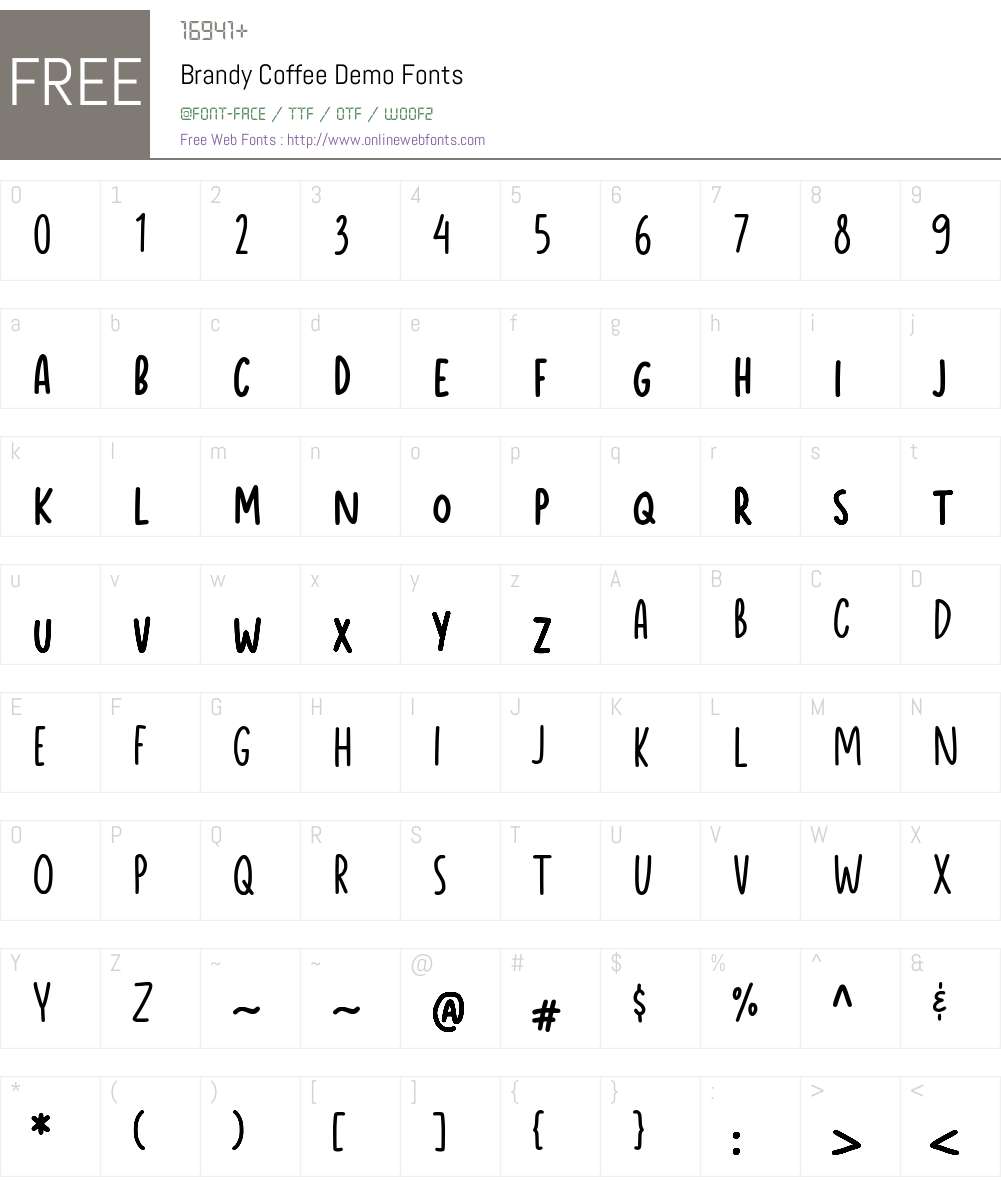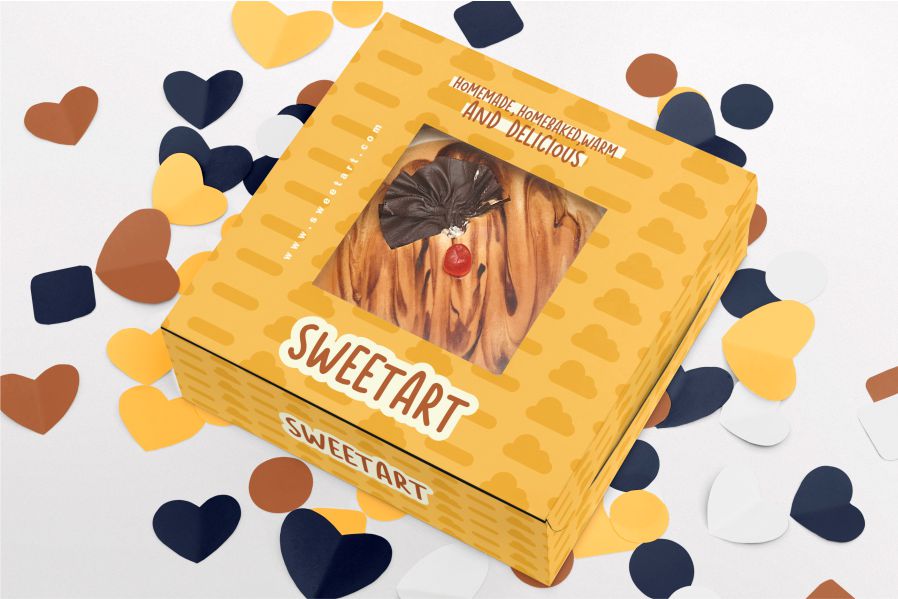
Brandy Coffee Demo Font . Paypal account for donation :. But any donation are very appreciated. Brandy coffee demo is a font. Brandy coffee von allouse studio. Brandy coffee is perfect for product packaging, branding project, megazine, social media, wedding, or just used to express words above the background. 34.841 downloads kostenlos für privaten gebrauch. Not free for commercial use. The typeface contains 1 file and supports 12 languages. ️ customize your own preview on ffonts.net to. Brandy coffee demo is licensed under the following terms: The brandy coffee demo font contains over 20 beautifully designed characters. This font free for personal use. Brandy coffee font is a quirky handwritten typeface designed by allouse.studio. Free download of brandy coffee font. This is the demo version.
Brandy coffee is perfect for product packaging, branding project, megazine, social media, wedding, or just used to express words above the background. Brandy coffee demo is a font. Click now to create a custom image with your own words that you can download. This demo font is for personal use only! Brandy coffee demo is licensed under the following terms: ️ customize your own preview on ffonts.net to. Brandy coffee von allouse studio. Free download of brandy coffee font. Brandy coffee font is a quirky handwritten typeface designed by allouse.studio. The typeface contains 1 file and supports 12 languages.
Brandy Coffee Demo Font The typeface contains 1 file and supports 12 languages. Brandy coffee font is a quirky handwritten typeface designed by allouse.studio. But any donation are very appreciated. This font free for personal use. Brandy coffee von allouse studio. Brandy coffee is perfect for product packaging, branding project, megazine, social media, wedding, or just used to express words above the background. Click now to create a custom image with your own words that you can download. The typeface contains 1 file and supports 12 languages. ️ customize your own preview on ffonts.net to. This demo font is for personal use only! Paypal account for donation :. Brandy coffee demo is licensed under the following terms: Brandy coffee demo is a font. 34.841 downloads kostenlos für privaten gebrauch. This is the demo version. The brandy coffee demo font contains over 20 beautifully designed characters.
Brandy Font Brandy Coffee Demo Font Paypal account for donation :. Brandy coffee font is a quirky handwritten typeface designed by allouse.studio. Brandy coffee von allouse studio. This font free for personal use. Brandy coffee demo is licensed under the following terms: This demo font is for personal use only! The typeface contains 1 file and supports 12 languages. Click now to create a custom image. Brandy Coffee Demo Font.
Brandy Coffee Demo Font · 1001 Fonts Brandy Coffee Demo Font This demo font is for personal use only! Brandy coffee font is a quirky handwritten typeface designed by allouse.studio. This font free for personal use. Brandy coffee is perfect for product packaging, branding project, megazine, social media, wedding, or just used to express words above the background. Brandy coffee demo is a font. The brandy coffee demo font contains over. Brandy Coffee Demo Font.
Brandy Font by 38.lineart · Creative Fabrica Brandy Coffee Demo Font Brandy coffee demo is a font. This demo font is for personal use only! But any donation are very appreciated. The brandy coffee demo font contains over 20 beautifully designed characters. 34.841 downloads kostenlos für privaten gebrauch. Brandy coffee is perfect for product packaging, branding project, megazine, social media, wedding, or just used to express words above the background. Brandy. Brandy Coffee Demo Font.